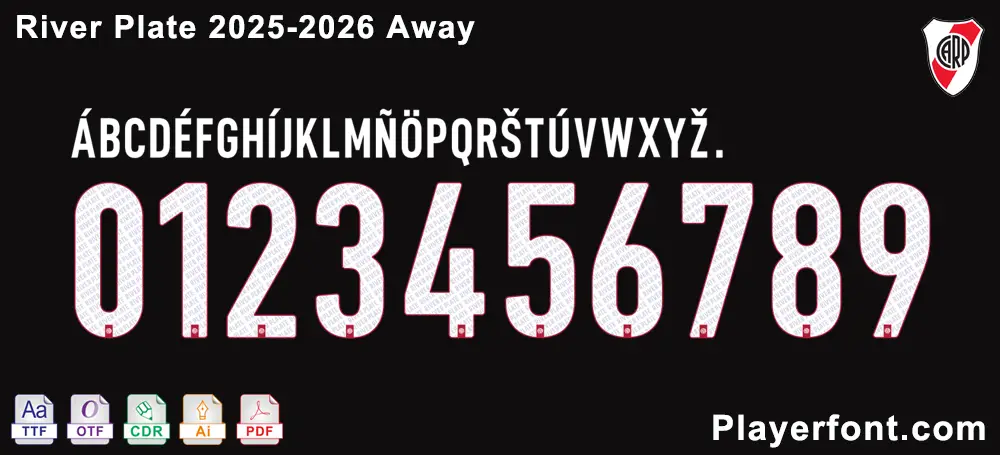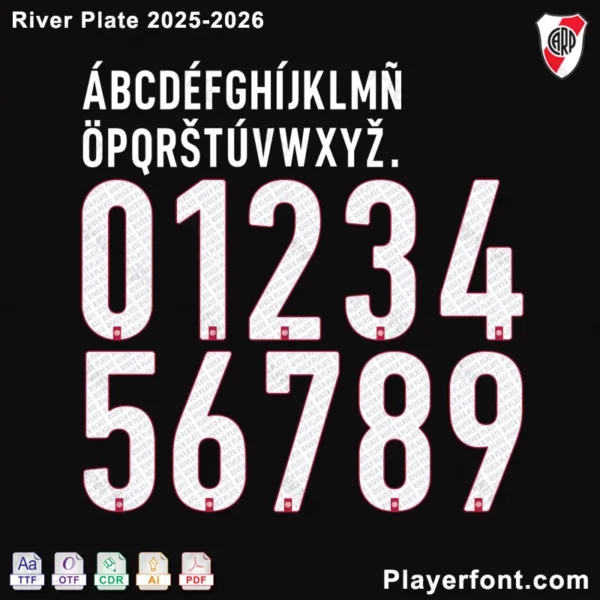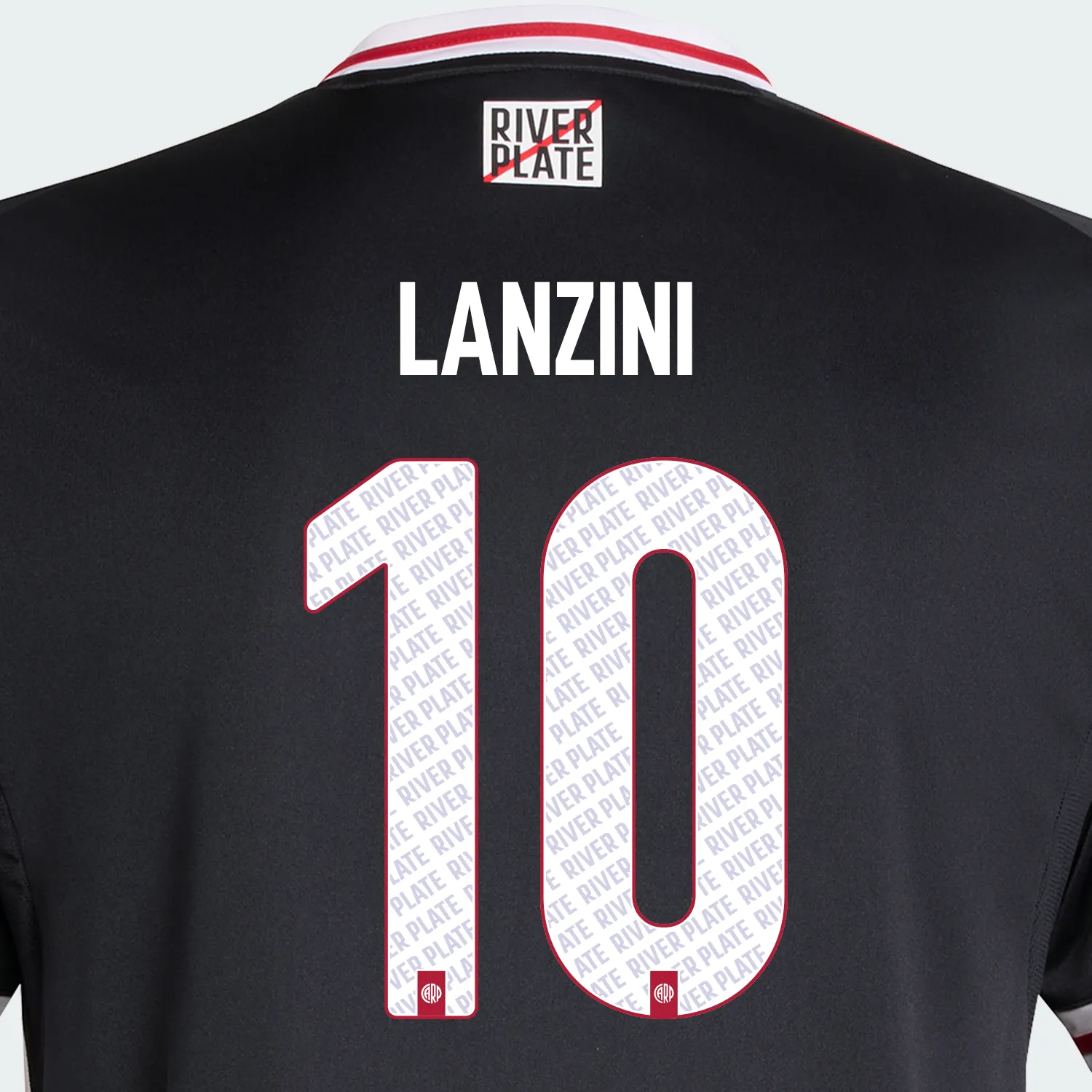
River Plate 2025-2026 Away Jersey Font – Digital Download
Elevate your designs with the official River Plate 2025-2026 Away Jersey Font! This font is meticulously crafted to match the typography used on the club’s away jerseys for the 2025-2026 season.
✅ Authentic Design – Exact replica of the official font.